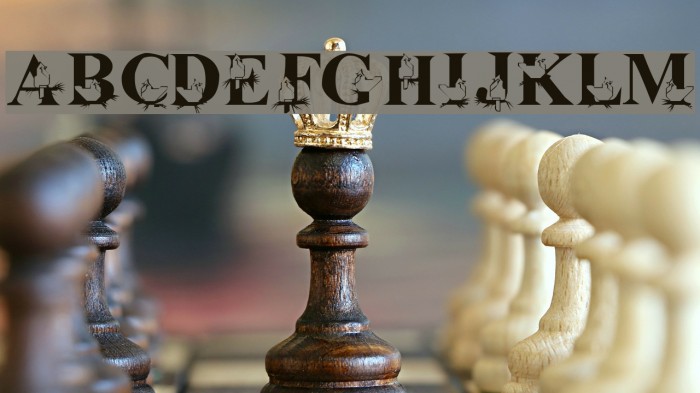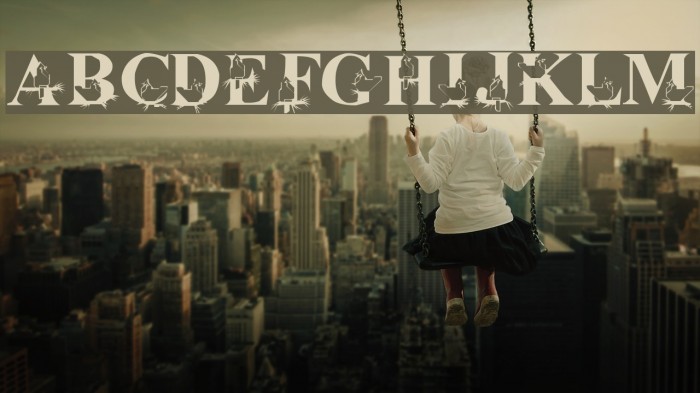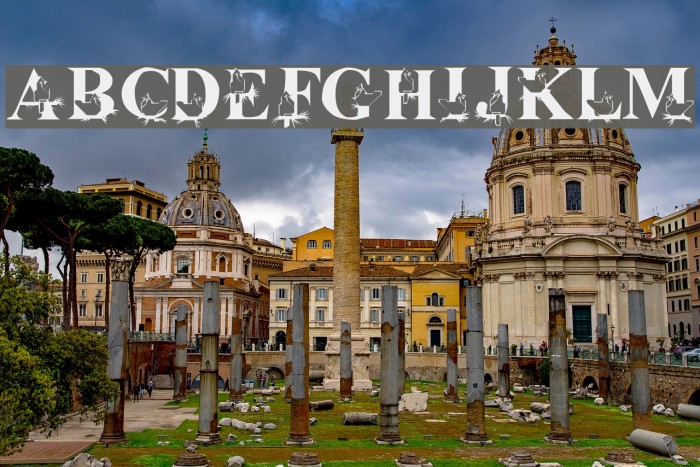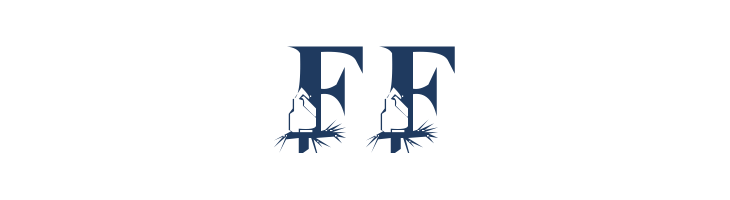
Christmas Cardinals Font
Christmas Cardinals Description
This decorative font features a unique and festive design, incorporating cardinal birds into the structure of each letter. The uppercase letters are bold and striking, with the cardinals seamlessly integrated into the serifs and stems, adding a playful and seasonal touch. The overall appearance is both elegant and whimsical, making it ideal for holiday-themed projects. The intricate details of the birds provide a sense of movement and life, enhancing the visual appeal. The font maintains a consistent weight and width, ensuring readability while still offering a distinct and memorable style.
| Use Case | Headlines, Logos, Decorative text |
| Proposed Projects | Ideal for holiday cards, festive invitations, seasonal branding, and decorative headlines. |